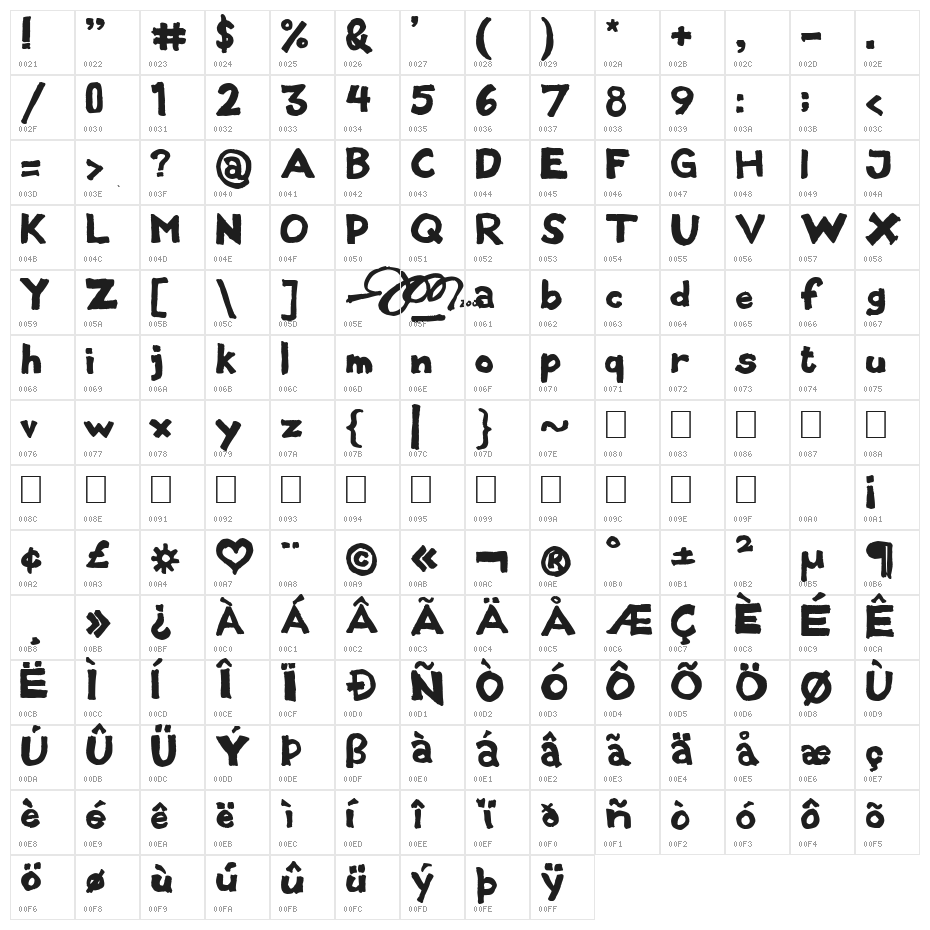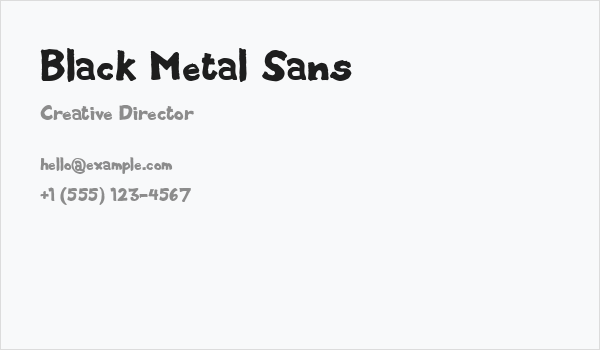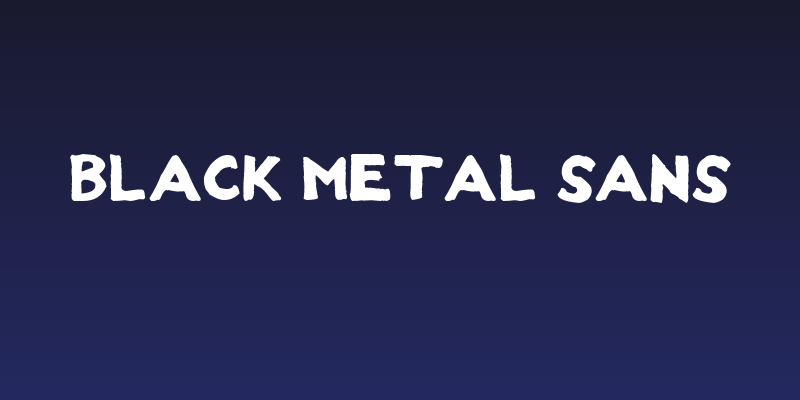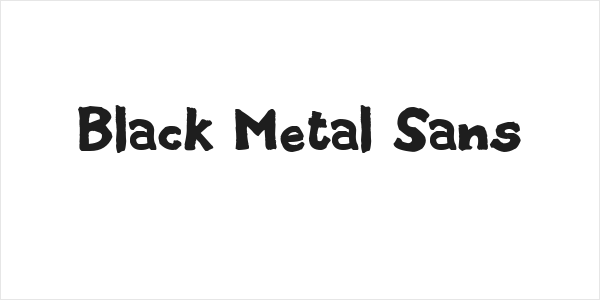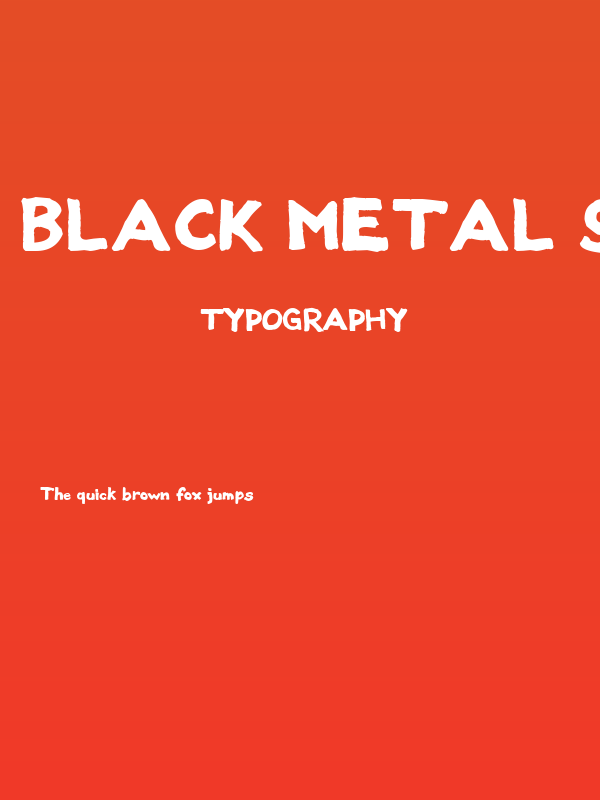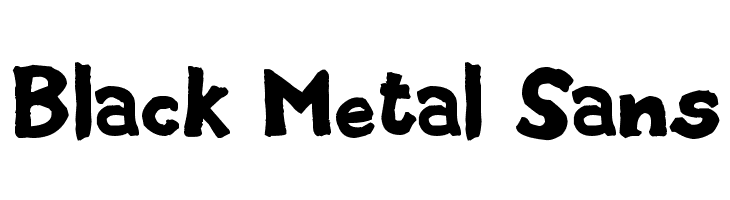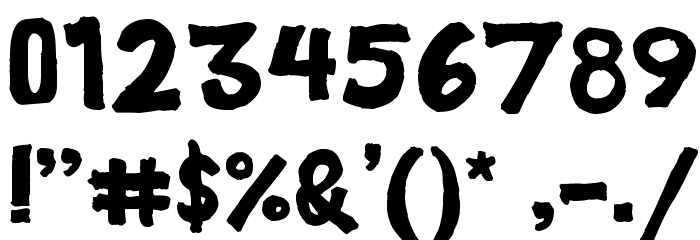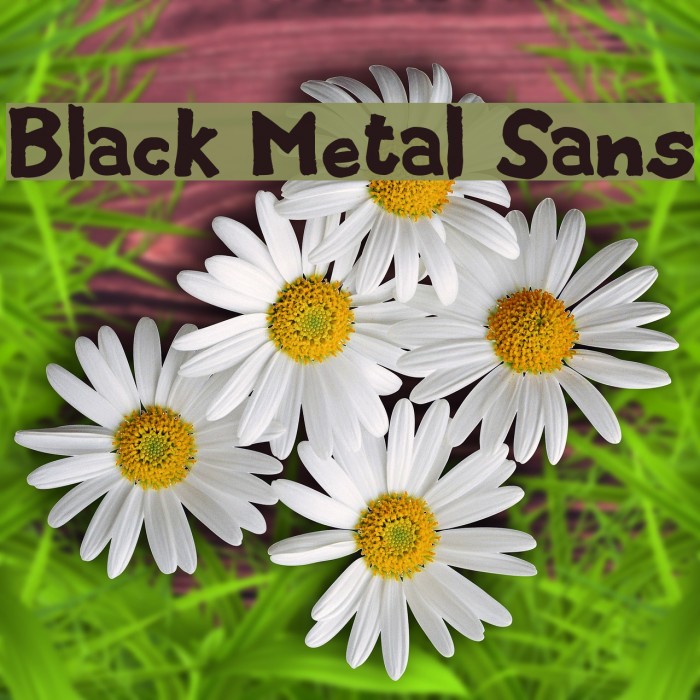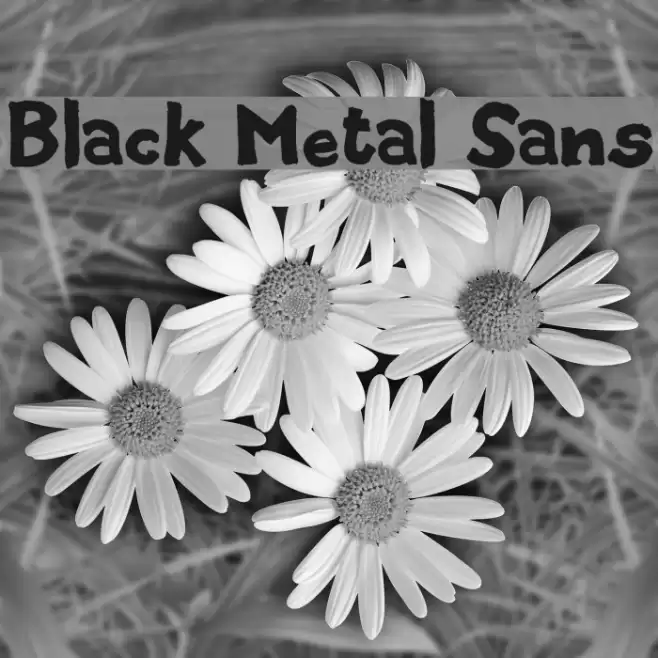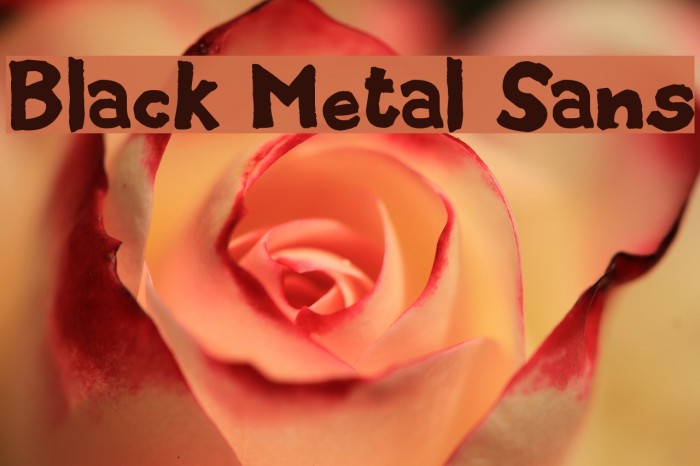
Black Metal Sans Font
Black Metal Sans Description
This font features a bold and rugged style, reminiscent of hand-drawn lettering with a rough, textured appearance. The characters are thick and have an uneven, organic quality, giving them a raw and edgy feel. The uppercase and lowercase letters maintain a consistent weight, while the numbers and special characters follow the same bold and irregular design. This font exudes a sense of rebellion and individuality, making it ideal for projects that require a strong, impactful visual statement.
| Proposed Projects | Album covers, posters, branding for edgy or alternative products, and any design needing a bold, rebellious aesthetic. |